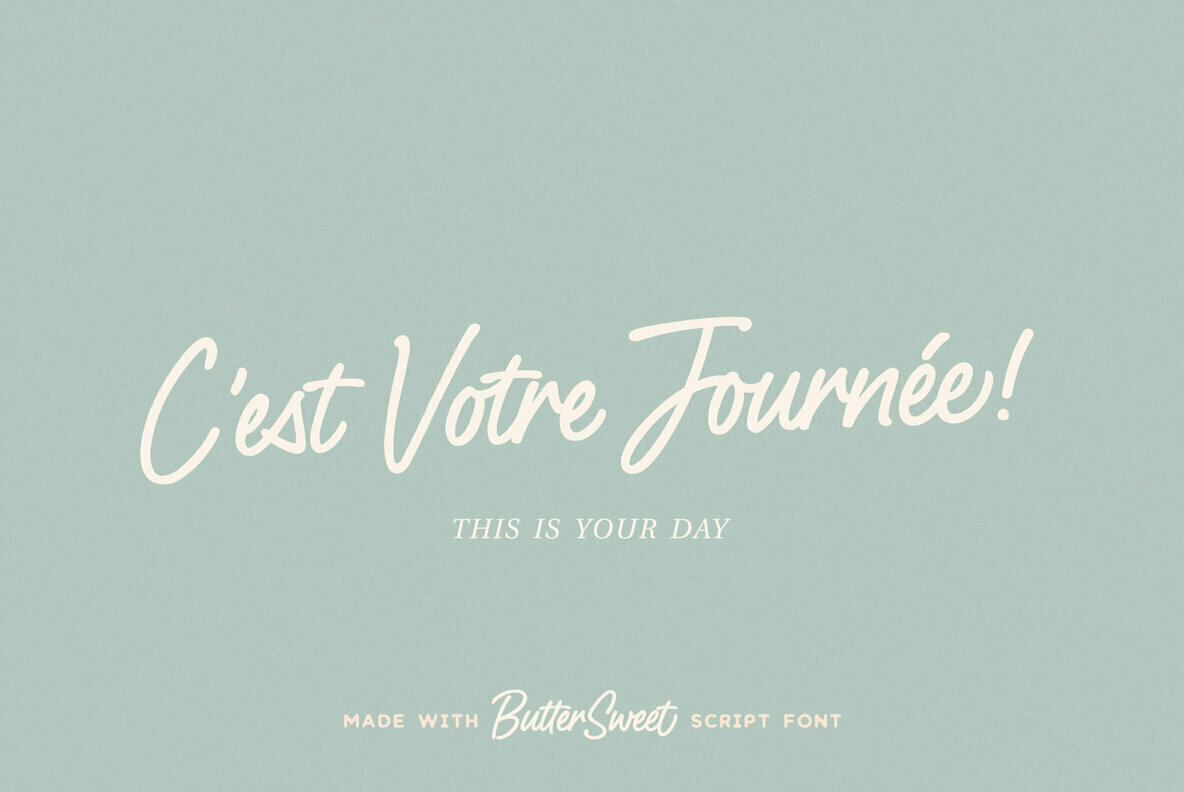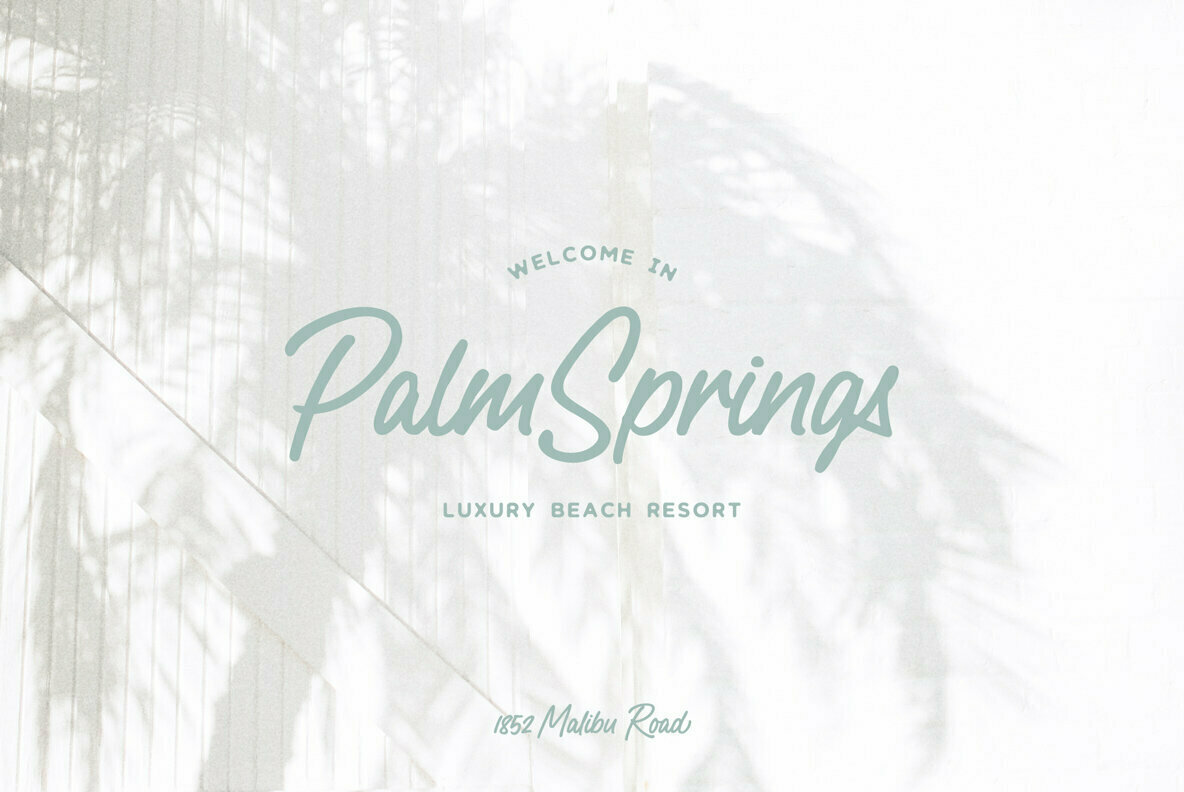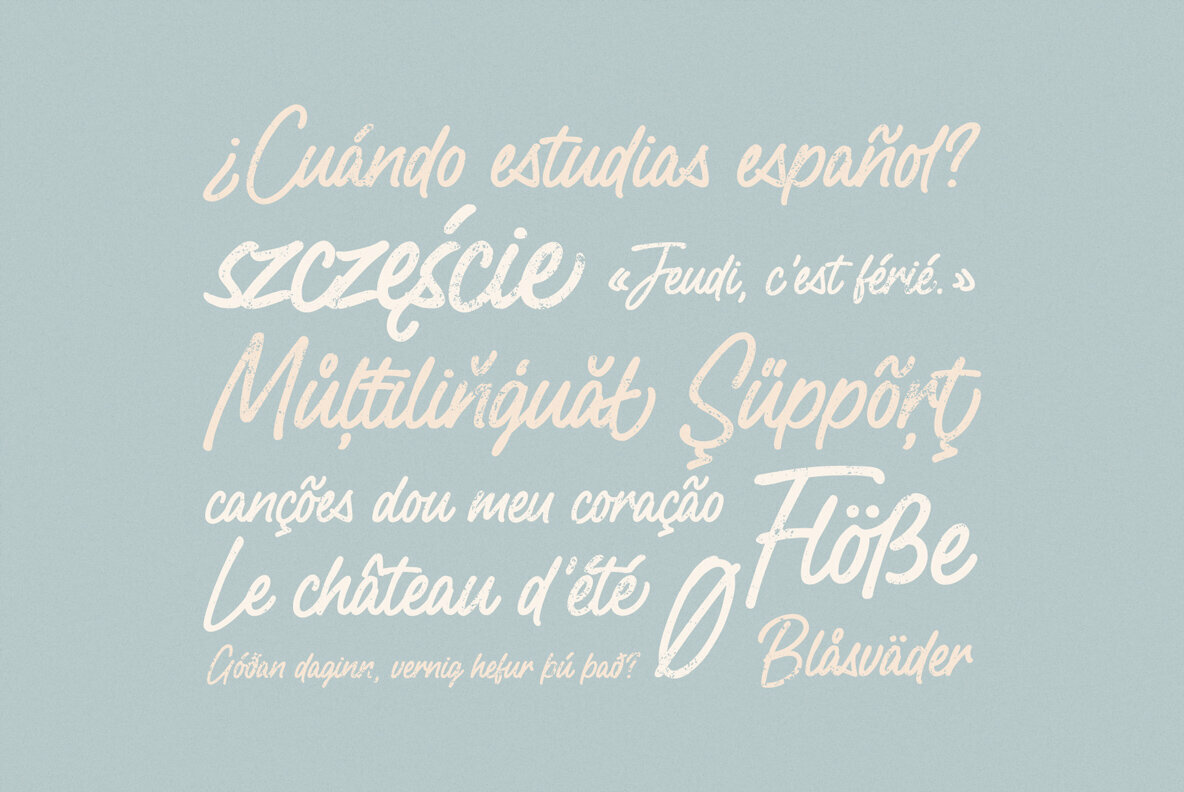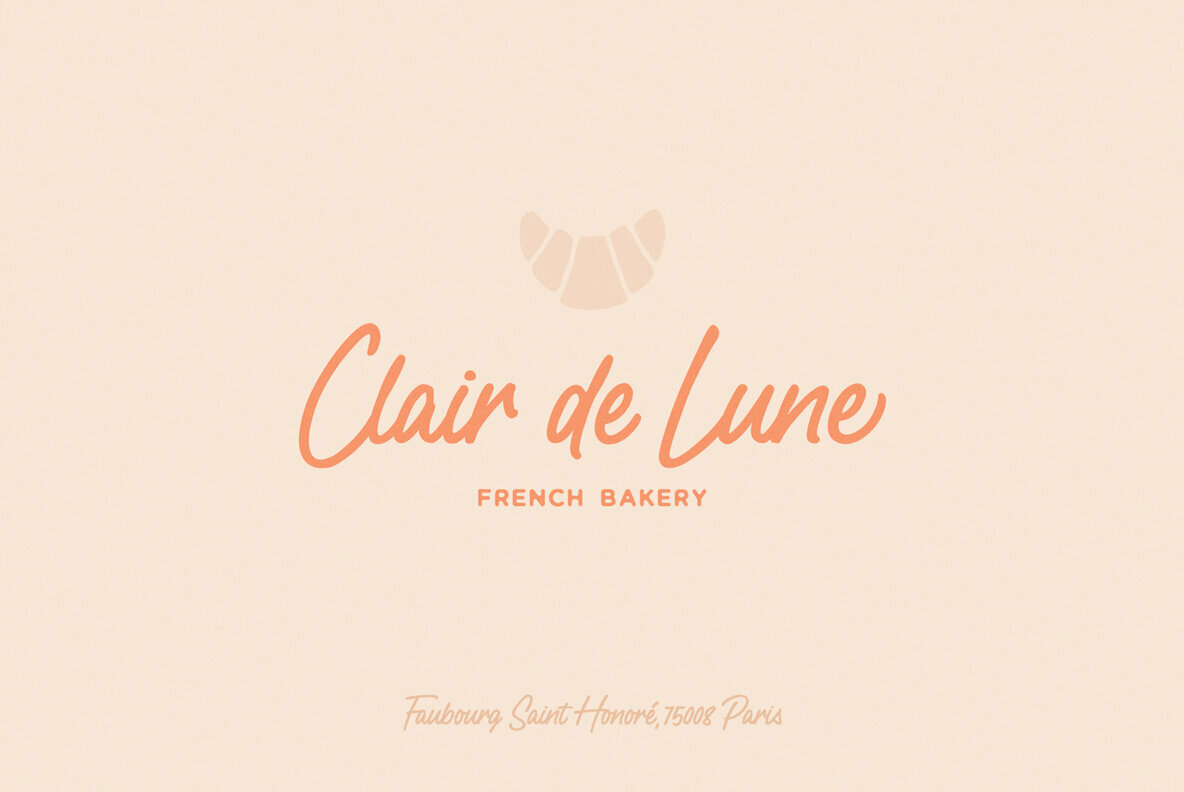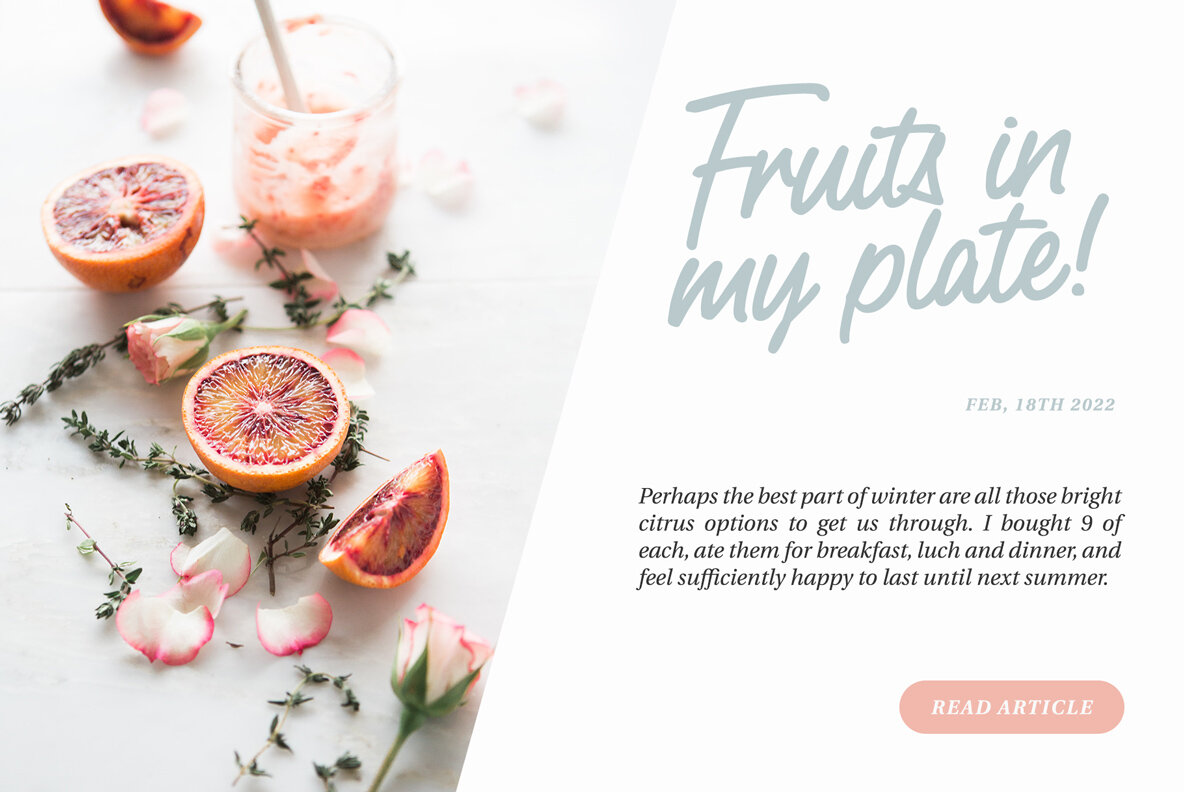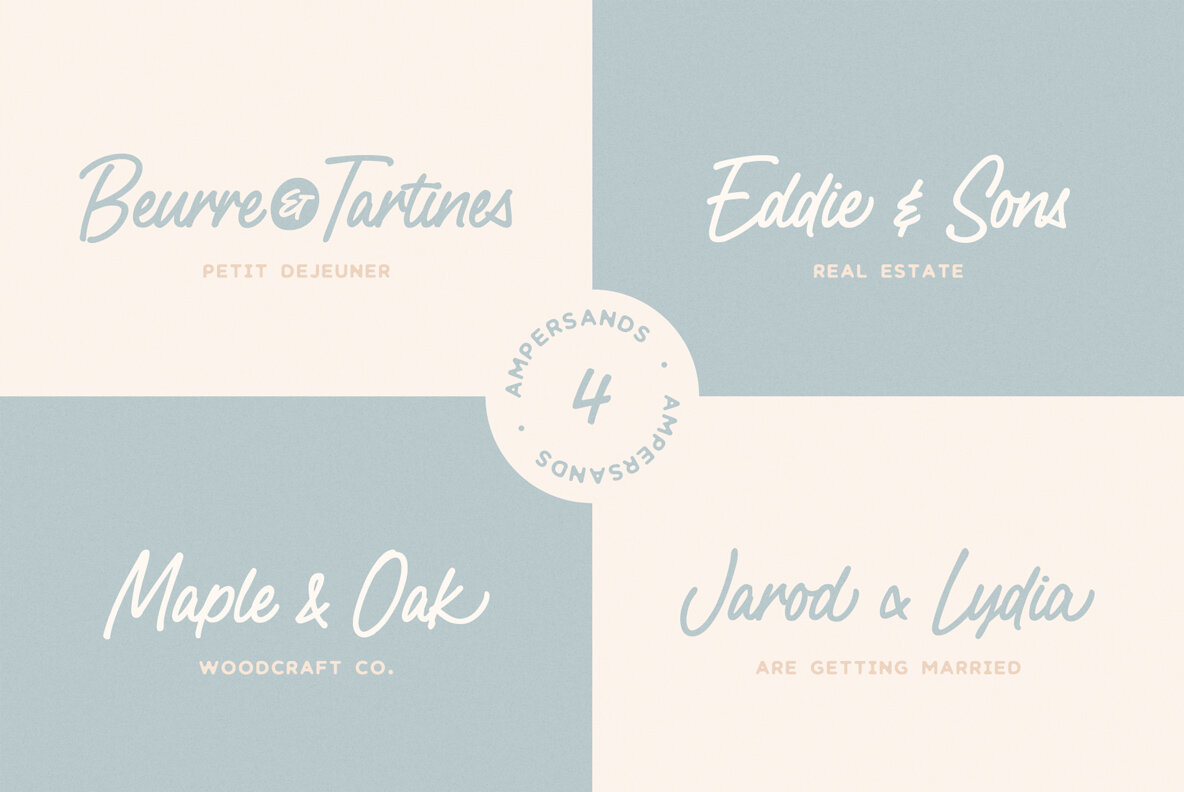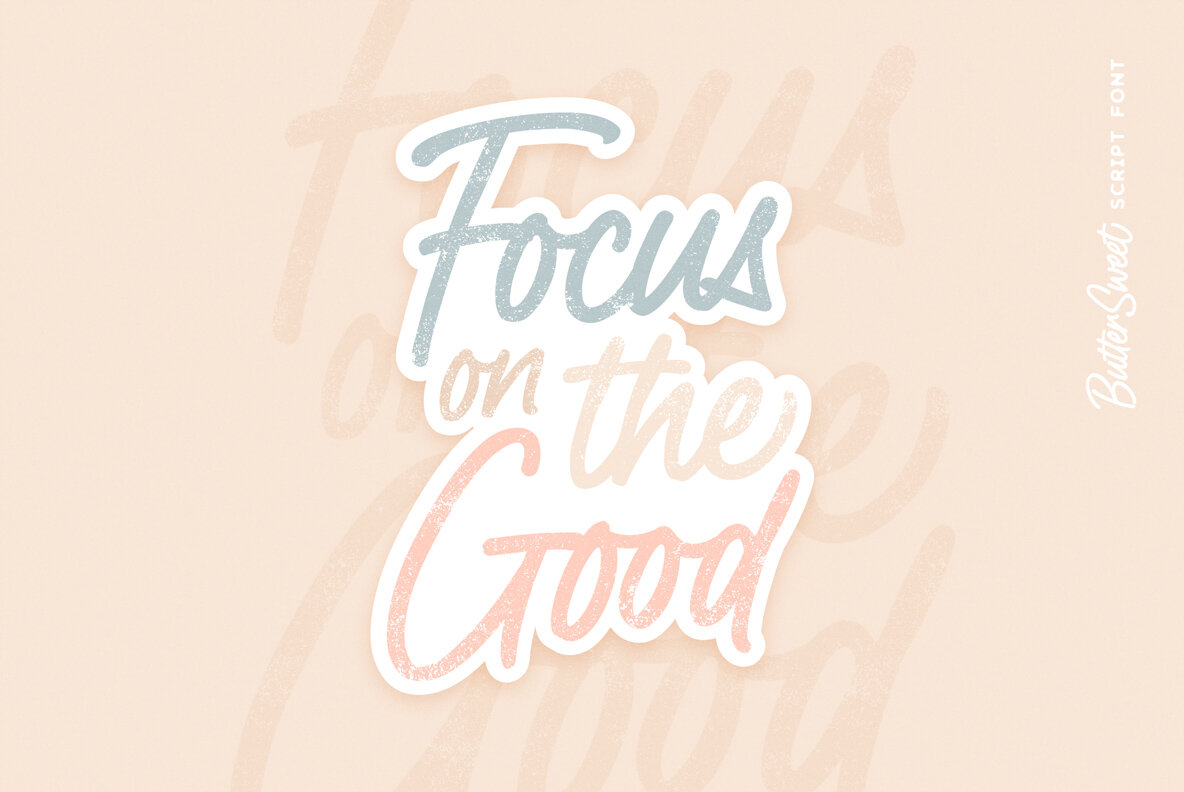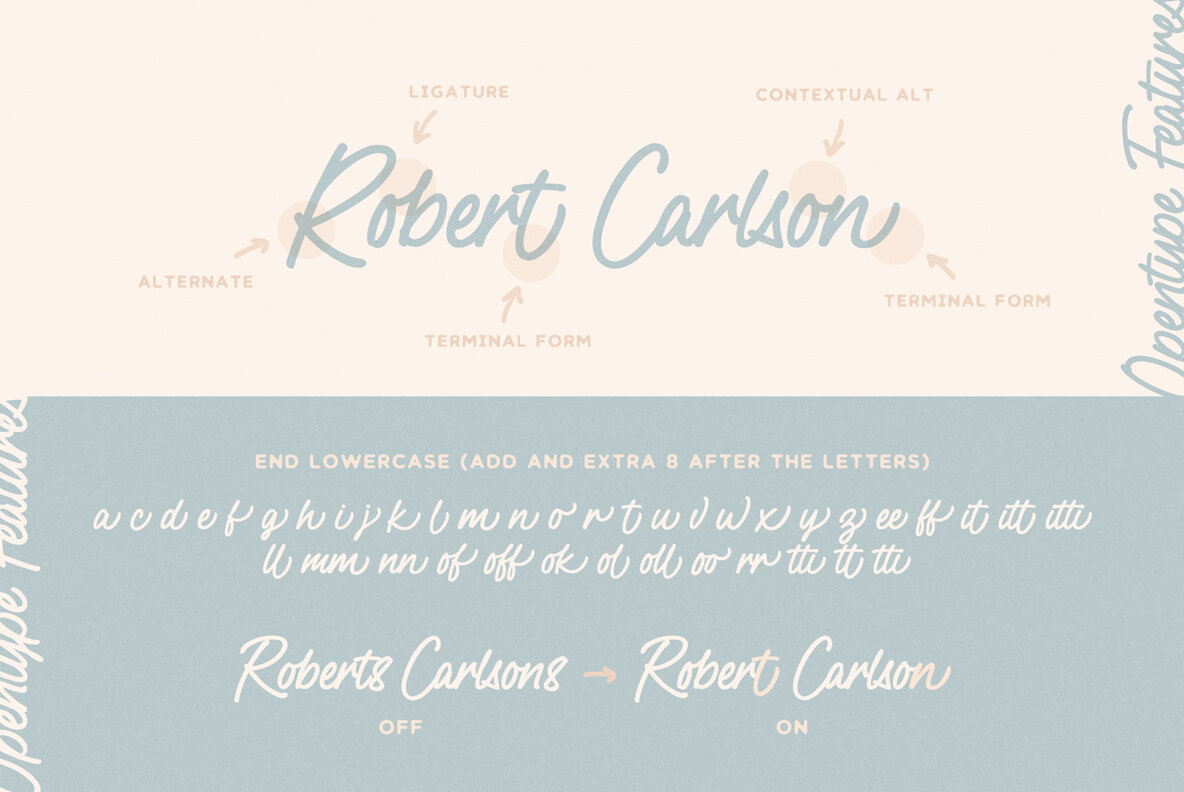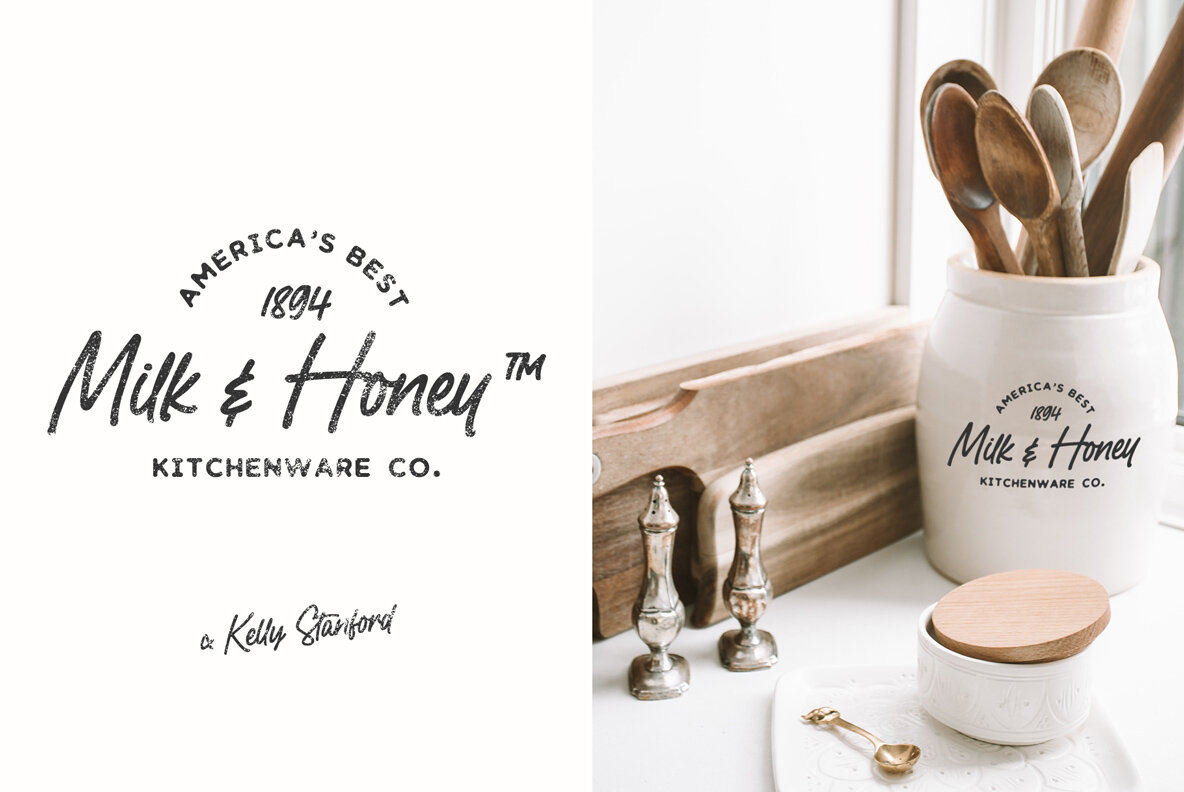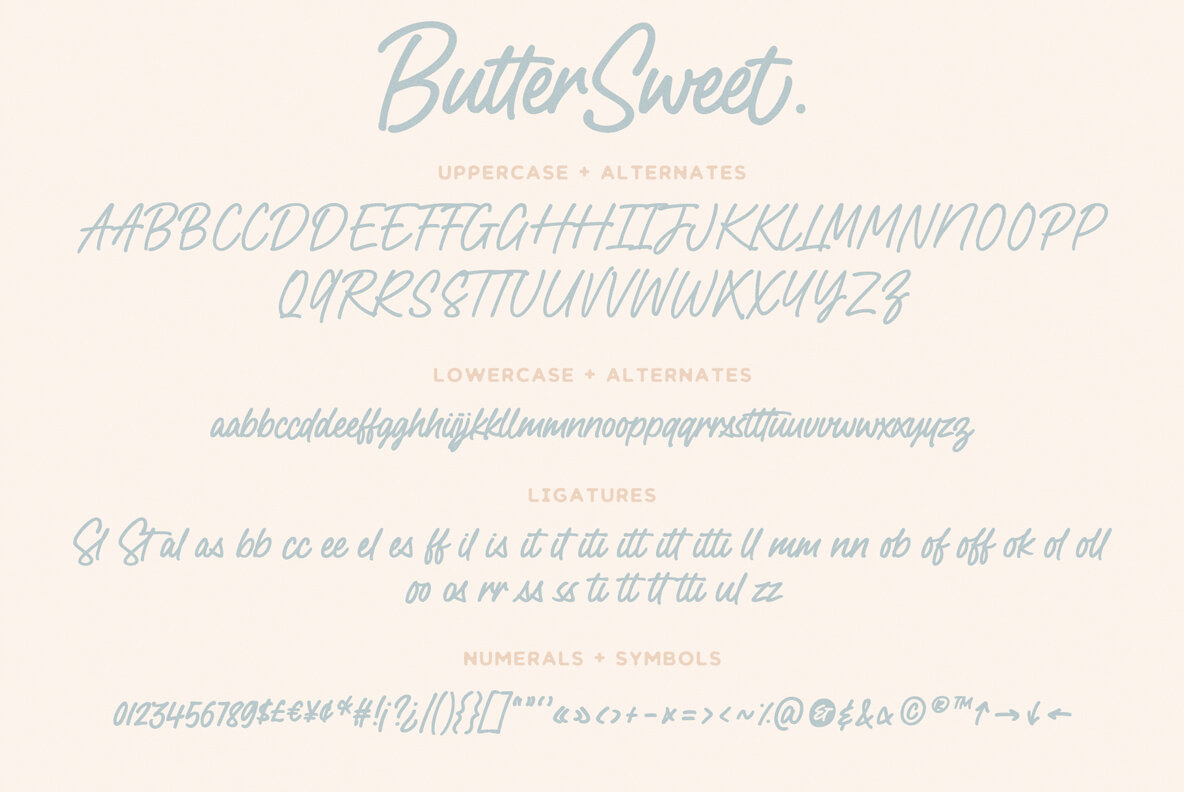
ButterSweet Font
ButterSweet is a charming smooth cursive script with a little french touch. It’s perfect for handcrafted brands that are looking for a bold script font with an authentic handwritten feeling.
Use it for blog headers, signatures, elegant branding, wedding stationery, products packaging, instagram quotes, greeting cards, social media posts, and so much more.
ButterSweet is designed with a large selection of Opentype features such as contextual alternates, a full stylistic set (Uppercase and lowercase), 38 regular ligatures, 18 terminal forms ligatures, 22 beautiful terminal forms for lowercase letters and you have 4 different ampersands to play with.